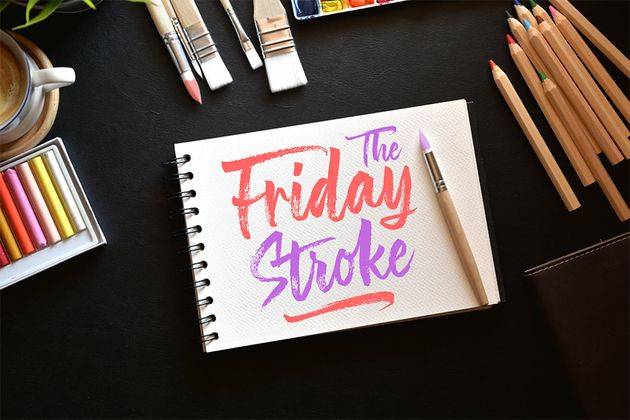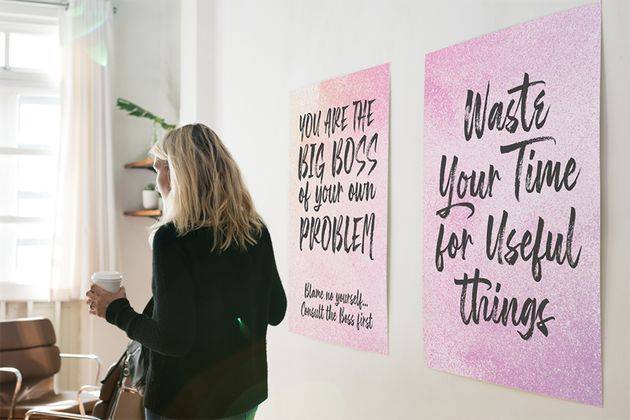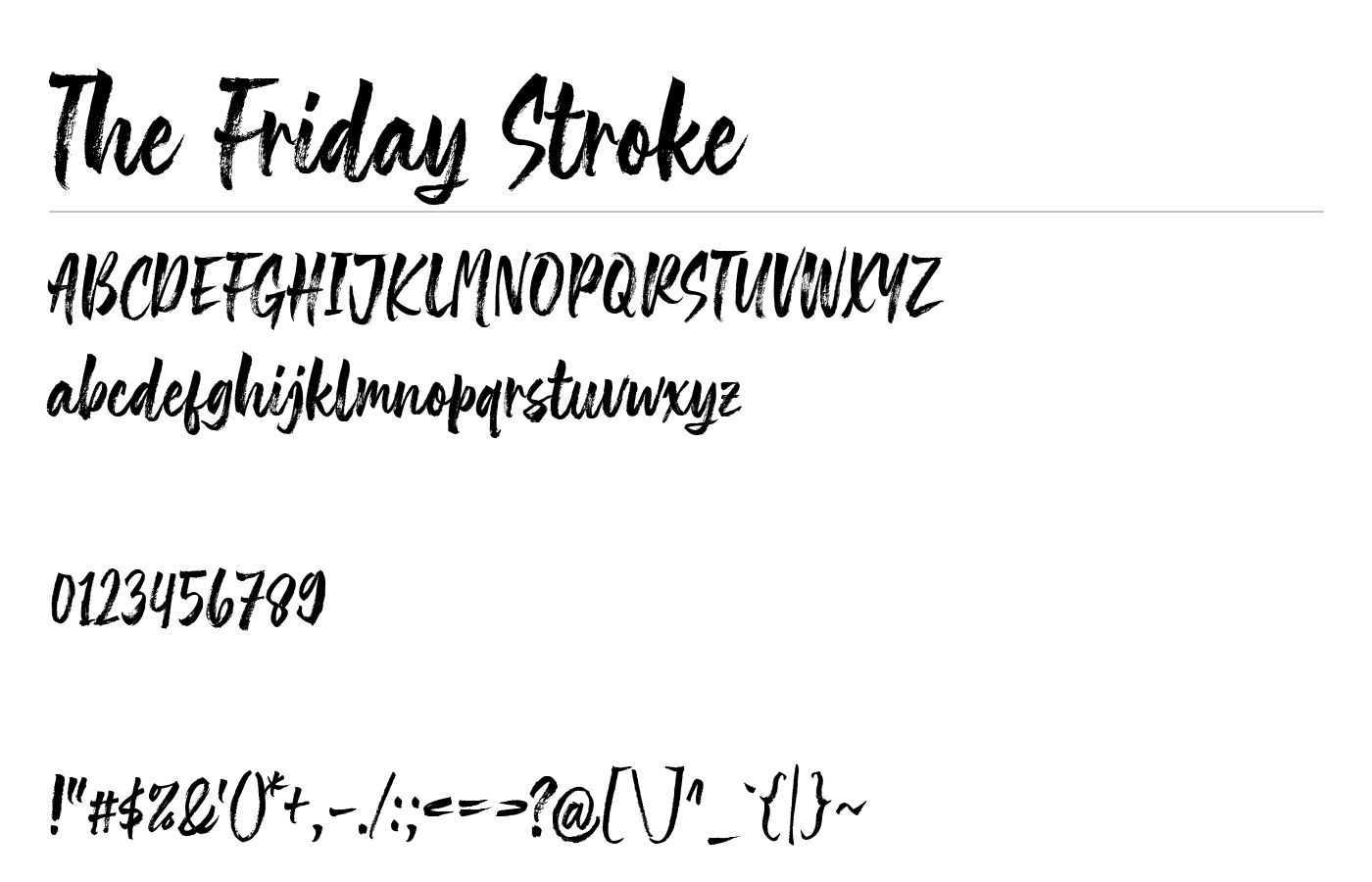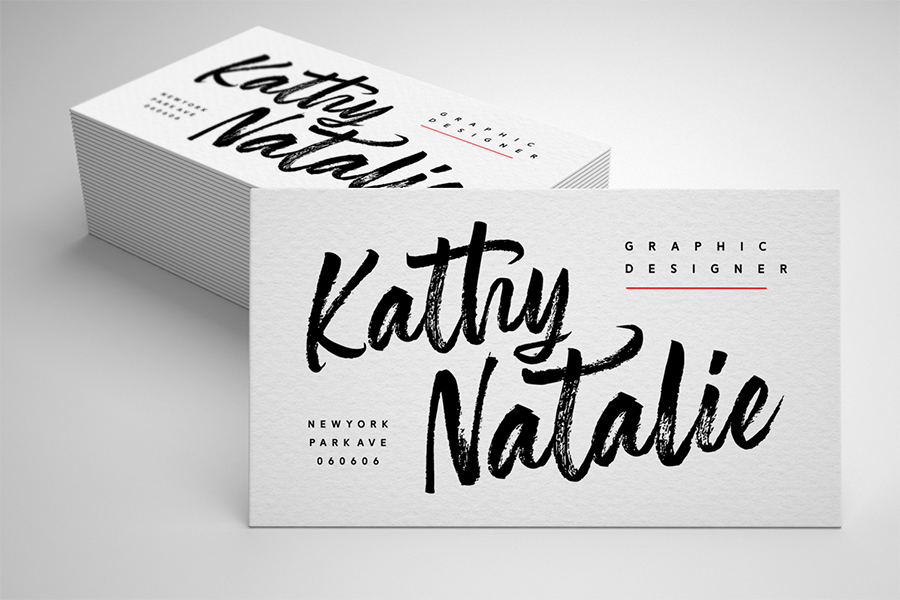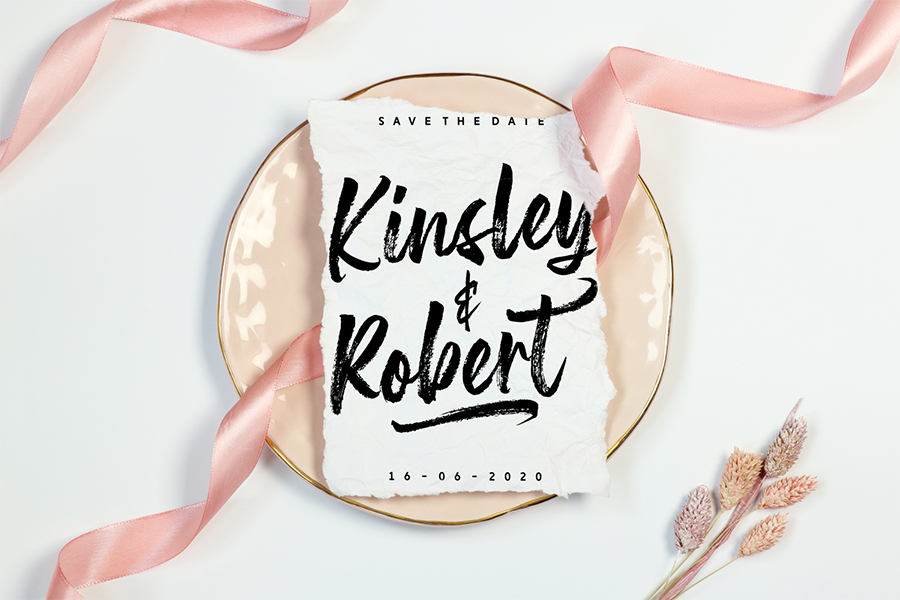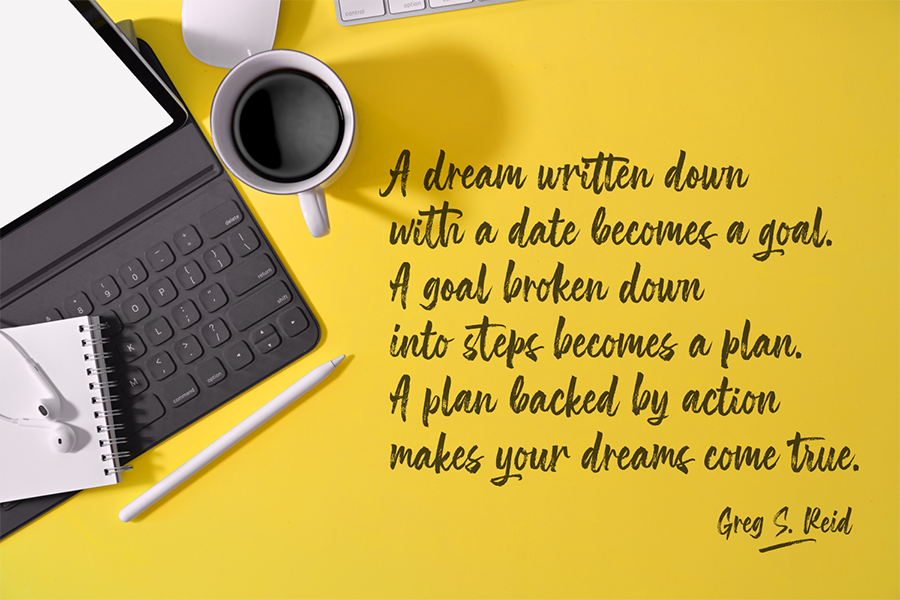
The Friday Stroke is a lively brush script font with a textured, hand-painted look that brings energy and personality to any design. Its varied stroke weight and rough edges create a casual yet artistic feel, ideal for creative branding, posters, and informal headlines that need a bold, expressive touch. This font works especially well where a handcrafted, dynamic style is desired to stand out with warmth and authenticity.
The Friday Stroke Font
About The Friday Stroke Font
| Font family | The Friday Stroke Font |
| Release date | 2019-05-21 |
| Designer | Situjuh Nazara |